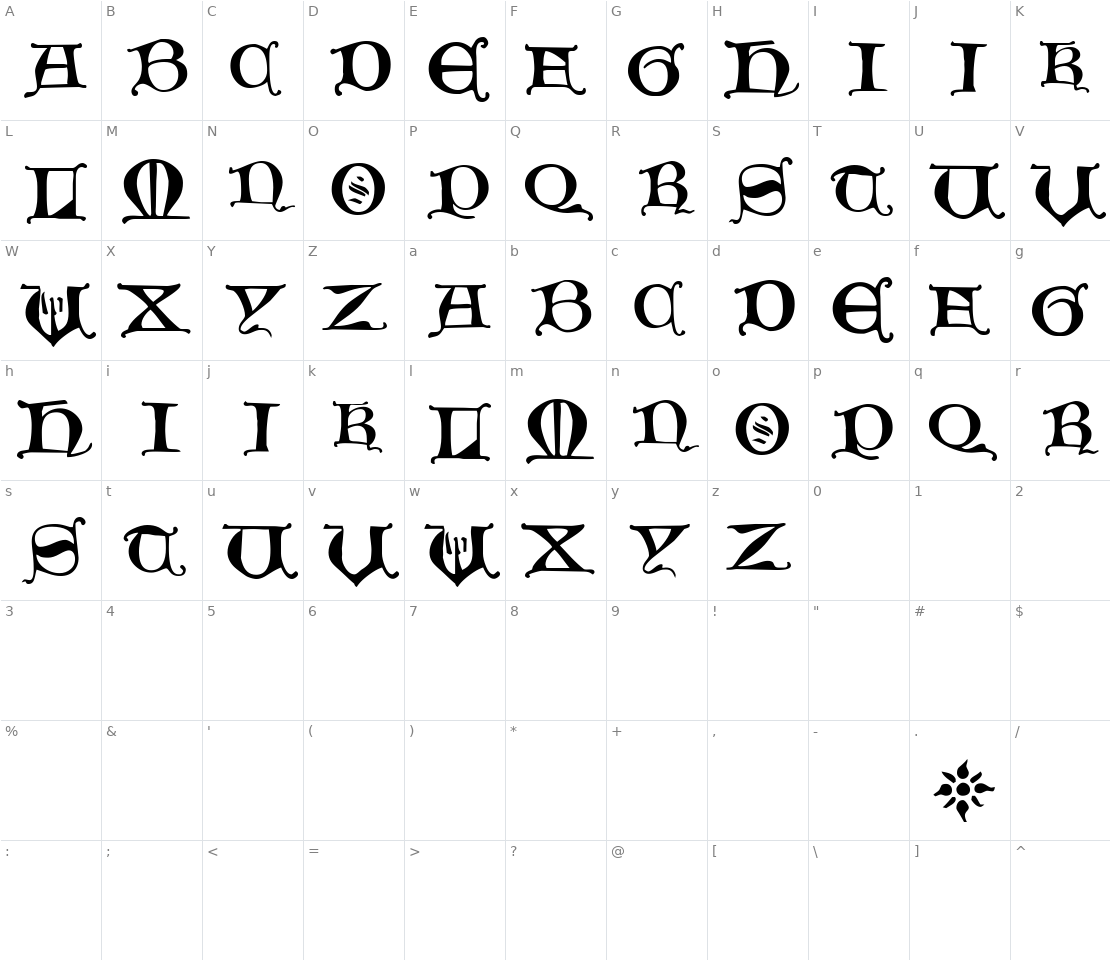
Hours in the Rain
Hours in the Rain is an ornate uncial display face by Sean, drawing on the rounded, open letterforms of medieval Celtic manuscripts. The decorative details and historical weight make it a strong pick for headlines, drop caps, and period-themed design where you want something that feels hand-lettered by a monk with a broad-nib pen. Best kept to larger sizes so the ornamental touches stay legible and distinct.